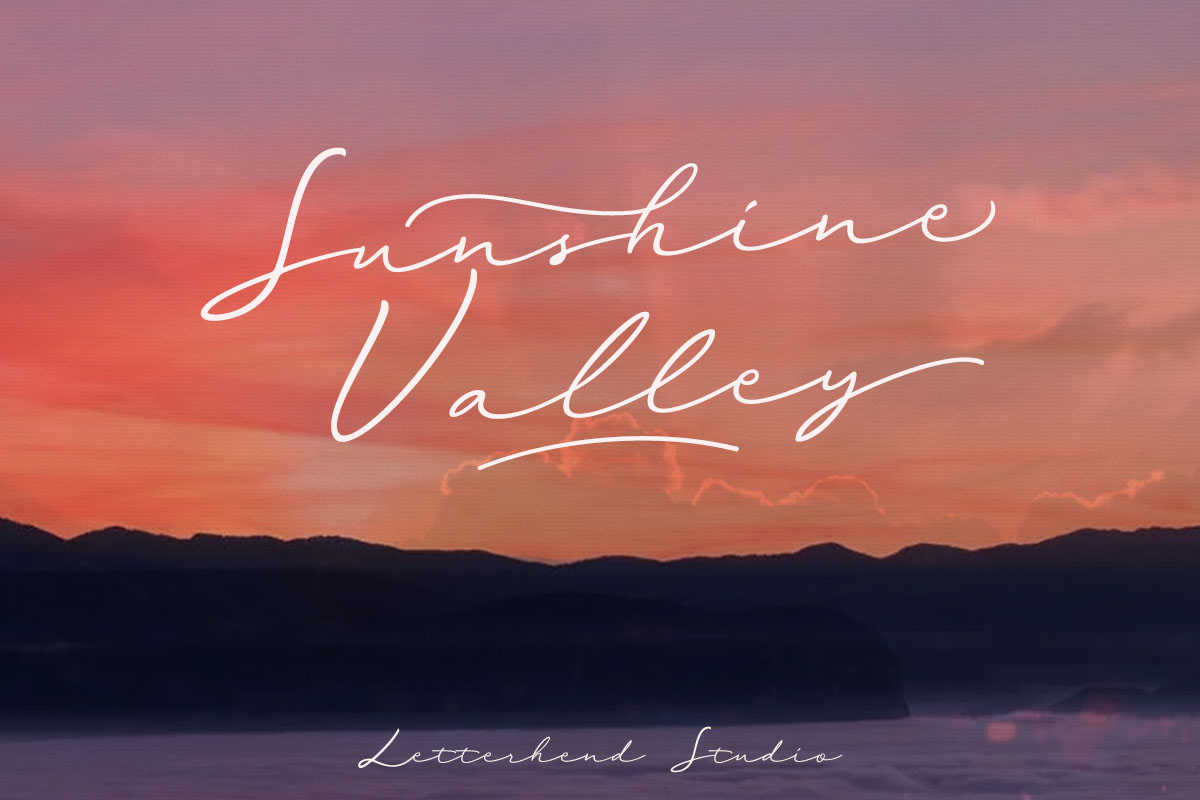
Sunshine Valley Font
Sunshine Valley Font is perfect for cheerful children's book covers, bright summer camp branding, sunny outdoor event posters, optimistic wellness center signage, joyful farmers market materials, radiant vacation resort promotions, warm family restaurant menus, golden hour photography portfolios, happy daycare center graphics, and uplifting community center communications. This luminous typeface brings golden warmth to solar energy companies, bright educational programs, cheerful botanical gardens, sunny tourism campaigns, and positive mental health awareness materials.
Sunshine Valley Font is exciting because it captures the radiant warmth and boundless optimism of golden sunshine through its brilliantly crafted letterforms. The font features bright, welcoming characters with sunny proportions and cheerful details that evoke the feeling of warm summer days, golden meadows, and the uplifting energy of natural sunlight streaming through mountain valleys. Its distinctive construction demonstrates luminous joy with carefully balanced elements that create an immediate sense of happiness and natural warmth. The font's sunny disposition and radiant authenticity make it perfect for brands seeking to communicate joy, optimism, and life-affirming positivity in their visual communications.
Sunshine Valley Font family includes various radiant styles: Light, Regular, Medium, Bold, Italic, Bright, Golden, Cheerful, Condensed, Extended, Radiant, and Joyful variants. Each family member maintains the core sunny DNA while offering different levels of brightness for diverse uplifting design applications. The comprehensive font collection ensures consistent cheerful branding across seasonal campaigns, positive wellness products, and joyful communication materials.
Whether you're creating joyful brand identities, designing sunny marketing materials, developing cheerful website headers, or crafting optimistic promotional campaigns, Sunshine Valley Font delivers outstanding radiant appeal and sunny authenticity. The font's distinctive bright personality excels in cheerful logos, positive packaging design, uplifting applications, and wellness projects where natural joy and golden warmth are essential.